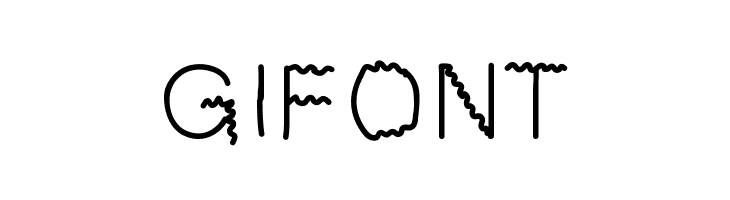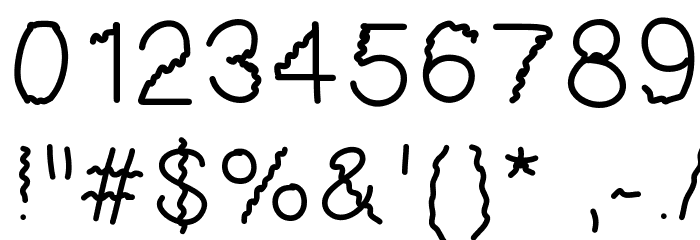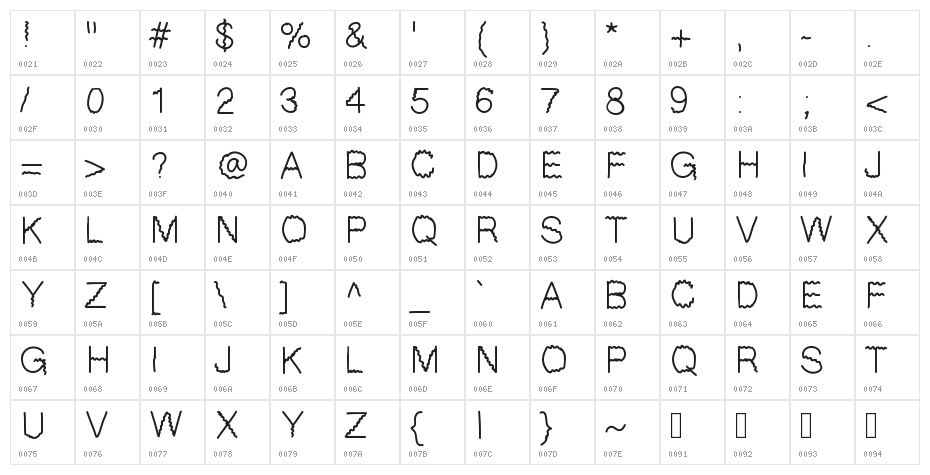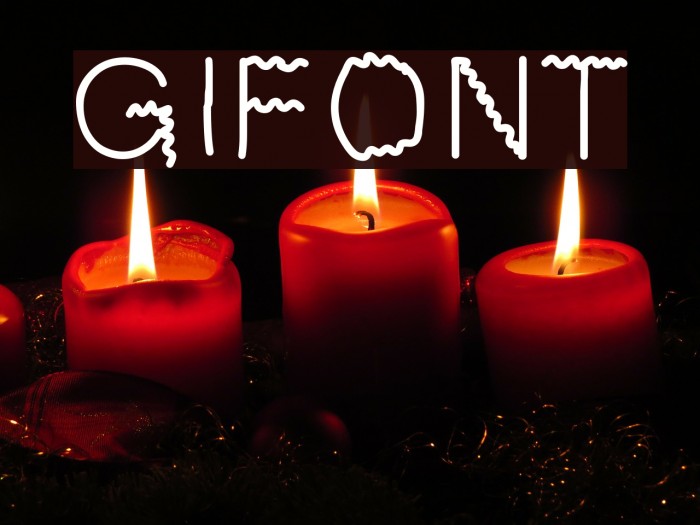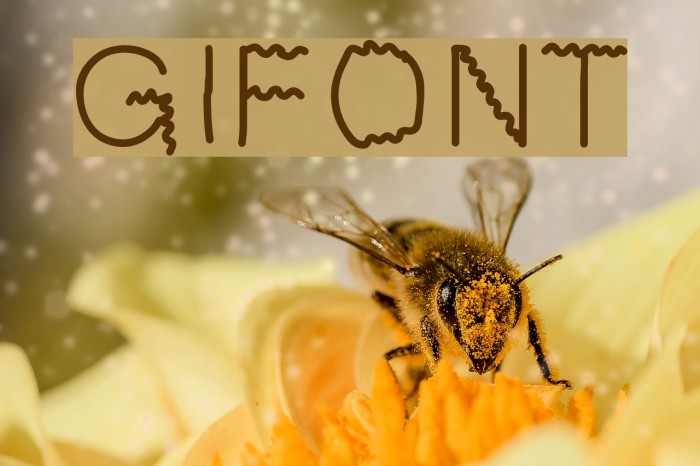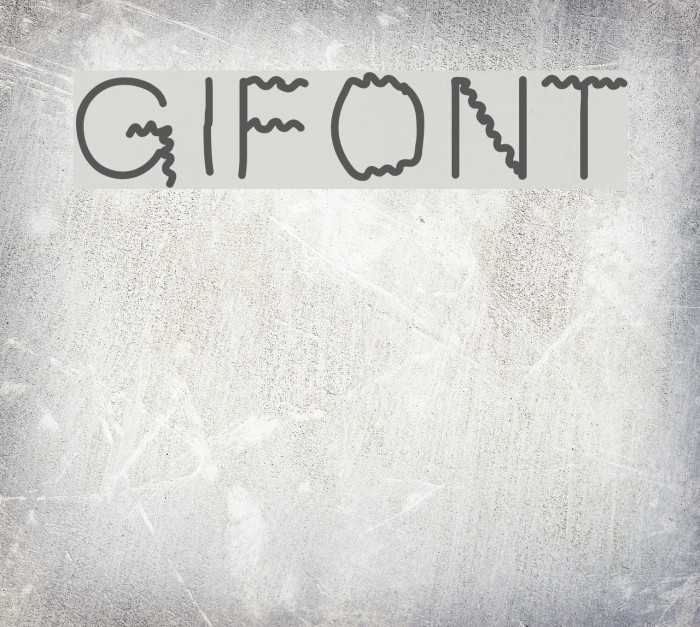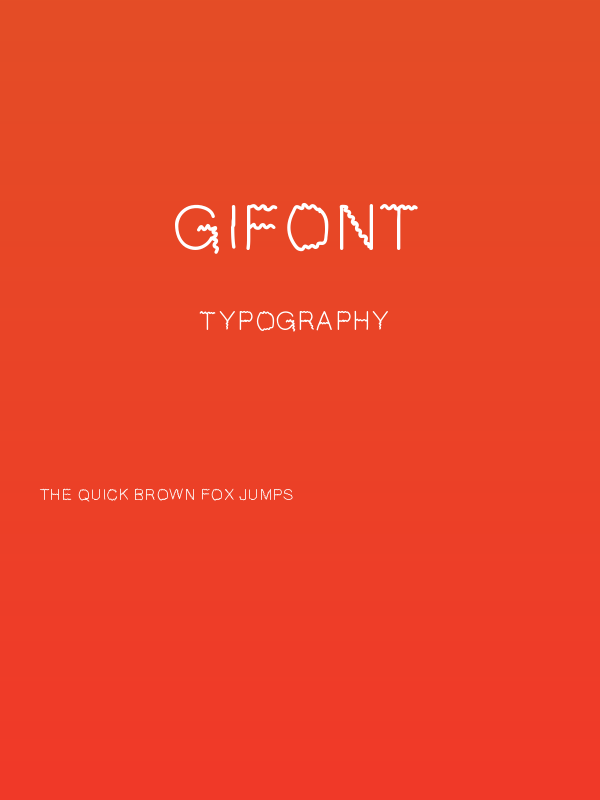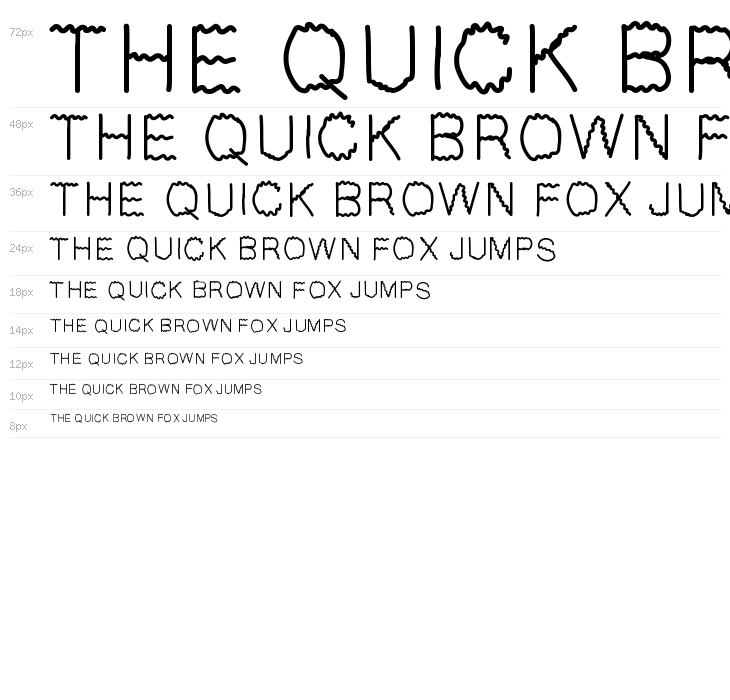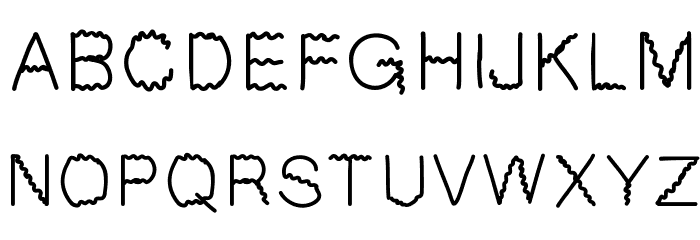
GIfont Font
GIfont Description
This font features a playful and wavy design, with each character appearing as if it is made from a series of zigzag lines. The uppercase and lowercase letters maintain a consistent style, with the wavy lines giving a sense of movement and energy. The numbers and special characters follow the same design principle, ensuring uniformity across the entire character set. The font's unique style makes it stand out, offering a whimsical and creative touch to any project. Its distinct appearance is suitable for designs that aim to capture attention and convey a sense of fun and creativity.
| Overall Style | Whimsical, Playful |